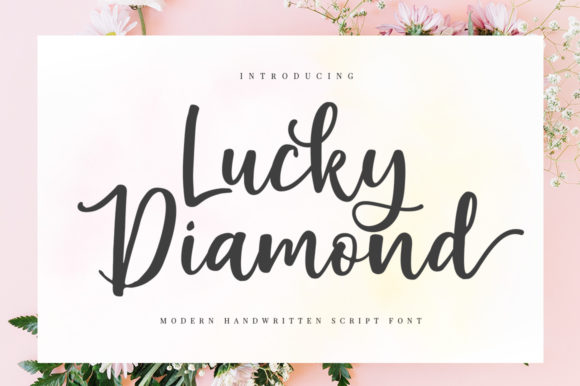
Lucky Diamond: A Handwritten Font That Elevates Marketing Visuals
As a marketing specialist who lives in the space between strategy and scroll-stopping design, I’ve tested hundreds of script fonts—but Lucky Diamond stands out for one reason: it delivers emotional resonance without sacrificing clarity. It’s not just another decorative handwritten font. It’s a Script Amp typeface built for impact—where elegance meets intention, and personality meets performance.
Visually, Lucky Diamond balances fluidity with structure. Its strokes carry warmth and authenticity—slight variations in line weight, subtle tapering, and organic spacing give it that human touch. Yet it avoids the overly casual or messy look that undermines professionalism. The result? A modern script font that feels personal but polished, expressive but legible—even at smaller sizes on mobile feeds.
In fast-moving digital environments, first impressions happen in under 0.5 seconds. That’s why Lucky Diamond works so well for thumbnails, reels covers, and Instagram story headers: its distinct rhythm and confident letterforms create instant visual hierarchy. When paired with high-contrast backgrounds or bold color blocking, it doesn’t compete—it commands attention. Think of a YouTube thumbnail announcing a limited-time workshop: “Your Breakthrough Starts Now” set in Lucky Diamond, centered over a muted gradient. No extra graphics needed—the font itself becomes the focal point.
For campaign-driven content—like seasonal promotions, product launches, or brand storytelling series—Lucky Diamond adds narrative texture. It subtly signals authenticity and care, which builds trust faster than generic sans serifs. A small business launching handmade ceramics might use Lucky Diamond for the headline “Hand-Thrown. Heart-Designed.” on an email banner. The font reinforces the brand’s values before the reader even processes the words.
Readability matters most where attention is shortest: mobile previews, Pinterest pins, and ad creatives. Here’s what works: use Lucky Diamond for headlines up to 48px on desktop and 36px on mobile, always against clean, uncluttered backgrounds. Avoid tight tracking or all-caps usage—it’s designed for natural word shapes, not forced uniformity. For short text only: titles, callouts, logo marks, quote accents, and hero section headers. Never for body copy or long captions.
Font pairing is where Lucky Diamond truly shines strategically. Pair it with a neutral sans serif—like Inter, Poppins, or Montserrat—for subheads, captions, and CTAs. This contrast creates balance: personality upfront, clarity behind. For editorial-style campaigns (think newsletter features or blog headers), try pairing with a refined serif like Playfair Display or Lora—adding sophistication while keeping hierarchy intact. The goal isn’t aesthetic harmony alone; it’s functional synergy across platforms and devices.
Real-world applications stack up fast. A fitness coach uses Lucky Diamond for “30 Days to Stronger” on a Reels cover—then switches to a crisp sans serif for the bullet-point benefits below. An online shop promotes “Summer Sale—25% Off” with Lucky Diamond as the hero text and a minimalist sans for dates and terms. A webinar series titled “The Quiet Launch” uses Lucky Diamond for the title treatment across landing pages, email headers, and LinkedIn banners—creating instant recognition across touchpoints.
That consistency is where Lucky Diamond supports brand identity beyond aesthetics. When audiences see that same graceful ‘L’, distinctive ‘g’, or looping ‘y’ across your Instagram grid, email signatures, and digital ads, it builds subconscious familiarity. Over time, that repetition strengthens recall—not because it’s loud, but because it’s unmistakably *yours*. In crowded feeds, that kind of visual signature separates memorable brands from forgettable noise.
It’s also versatile across formats. Use it in Figma or Adobe Creative Cloud for social templates, Canva brand kits, or Notion dashboards. Export cleanly for web use via variable font files (if supported) or optimized SVG for logo marks. For print applications like packaging or merch, test at final size—its open counters and balanced x-height hold up well in both digital and physical contexts.
Finally, consider context. Lucky Diamond excels when you want to evoke sincerity, craftsmanship, or gentle confidence—not urgency, tech-forward energy, or corporate authority. It’s ideal for wellness, creative services, boutique retail, education, lifestyle content, and personal branding. Less effective for fintech dashboards or cybersecurity alerts—know when to reach for a different tool in your design assets kit.